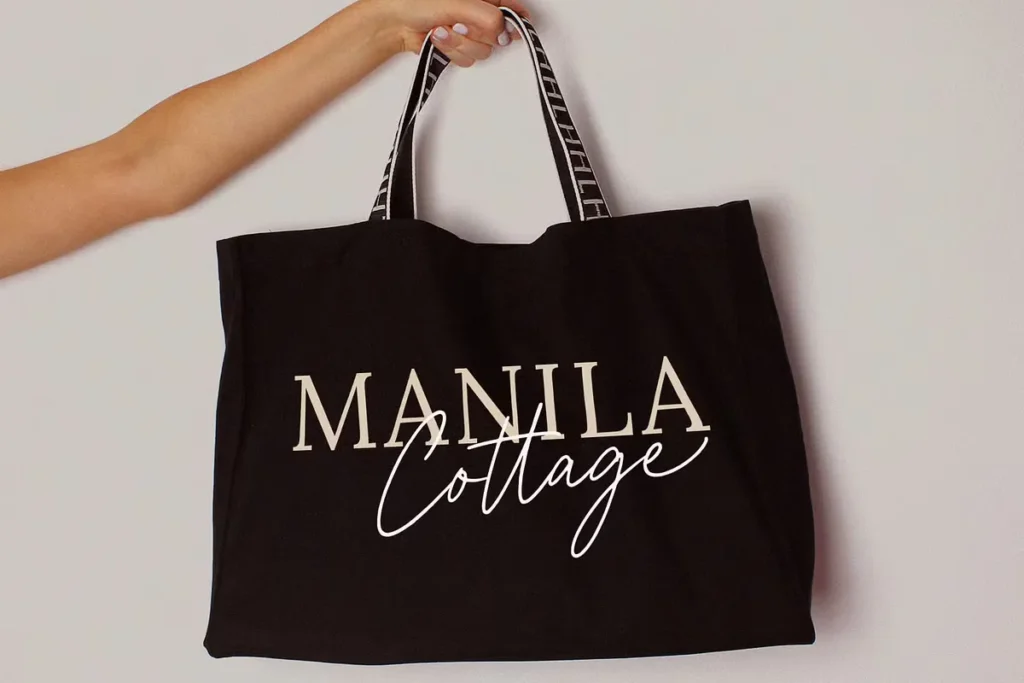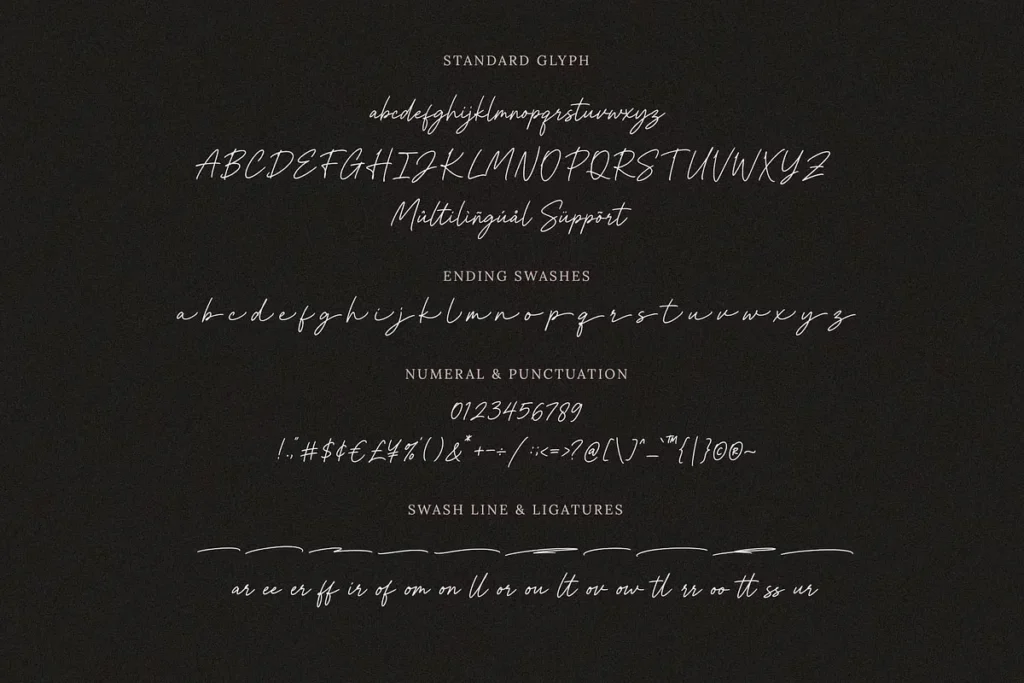
Hillmont – Free Signature Script Font is a modern and elegant handwritten typeface designed to add a personal, luxurious touch to your creative projects. Featuring a smooth, flowing script style with a natural handwriting feel, Hillmont is perfect for designers and creatives seeking a classy, stylish typeface that embodies both sophistication and charm.
Whether you’re working on branding projects, personal logos, or wedding invitations, Hillmont brings a chic and modern flair that enhances visual appeal. It’s also ideal for photography watermarks, social media graphics, product packaging, labels, and website typography. With its fluid strokes, delicate curves, and graceful swashes, Hillmont gives your work a hand-lettered, custom-crafted look.
This free signature font includes stylish ligatures and swashes that make your text stand out while maintaining readability and elegance. The font’s versatility makes it suitable for everything from feminine branding and luxury cosmetics to artistic stationery and personal blogs.
Hillmont captures the essence of casual script handwriting while remaining polished enough for high-end projects. Its classy cursive design is perfect for creating memorable logos and distinctive headlines. Whether used on a minimalist label or as a bold logotype, this typeface adapts seamlessly to a wide range of styles.
Ideal for use in:
- Branding & logo design
- Photography & watermarking
- Social media & advertising
- Product packaging & stationery
- Invitations & elegant website headers
Hillmont Free Signature Script Font